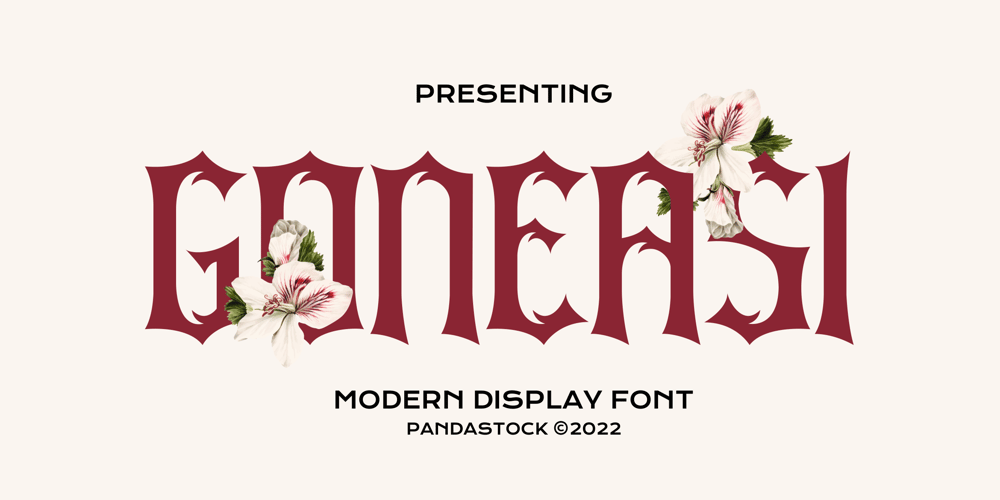
Goneasi
Goneasi font
Goneasi Font Family was designed by Aulia Savira Putri and published by Pandastock. Goneasi contains 1 styles and family package options. Goneasi is classic fonts with visual elegance, smooth curves and beautiful ligatures clear, making your work look true and attractive.A very versatile font that works in both large and small sizes. This font is suitable for a wide variety of projects such as invitations, logo, branding, magazine, photography, card, product packaging, mugs, quotes, social media, wedding, poster, label, signature and more.Font which is perfect for all business sectors including personal projects, studio, corporate, creative agency, industrial, company, etc.